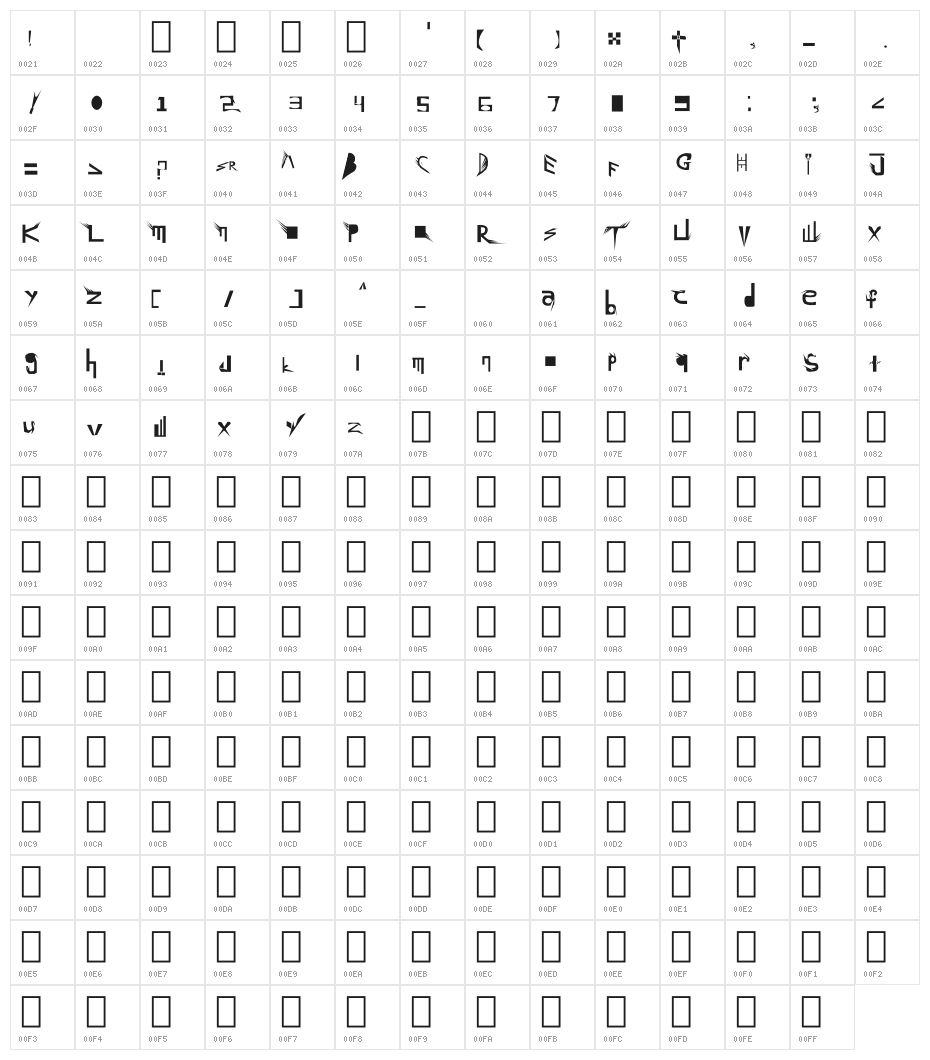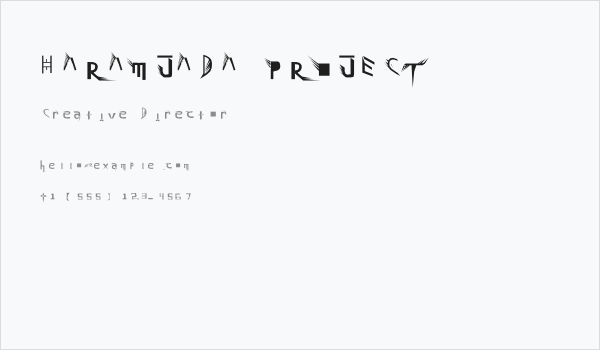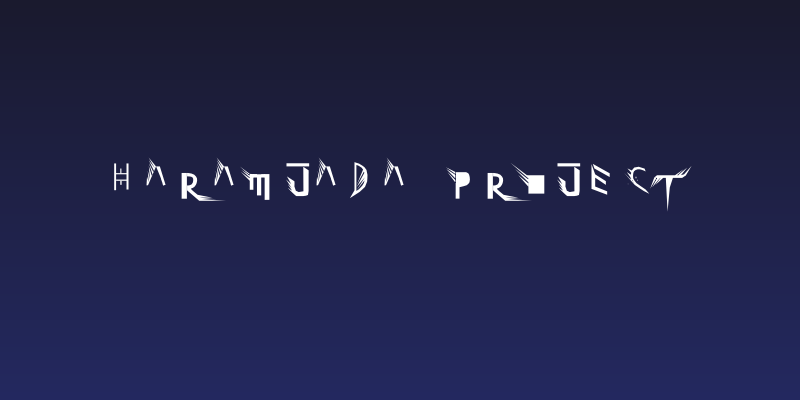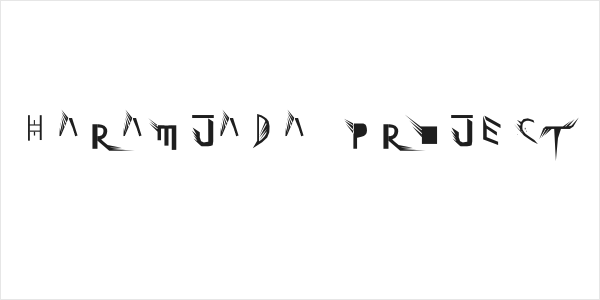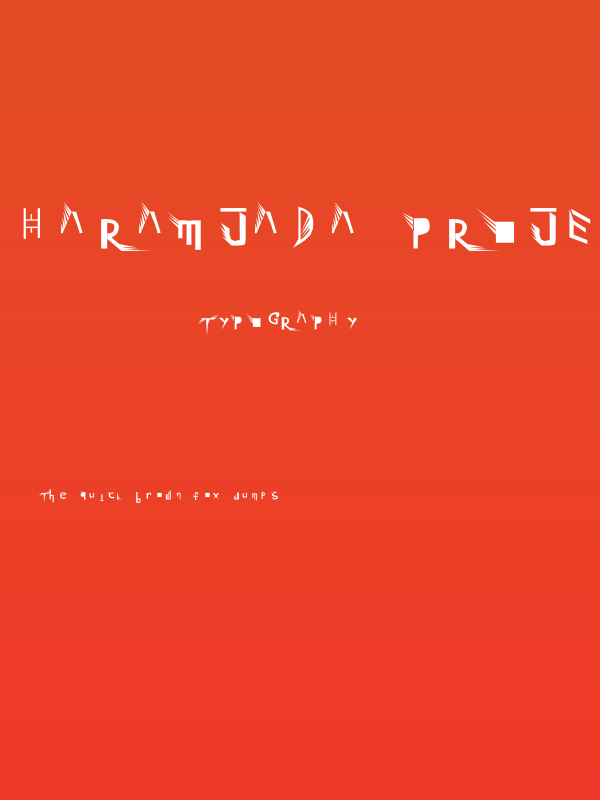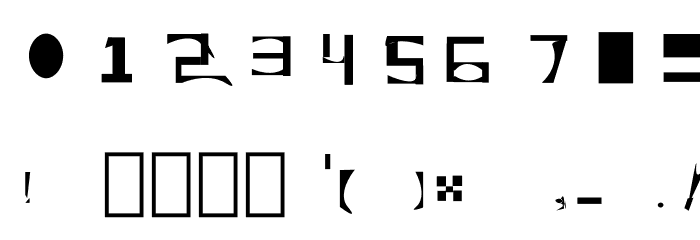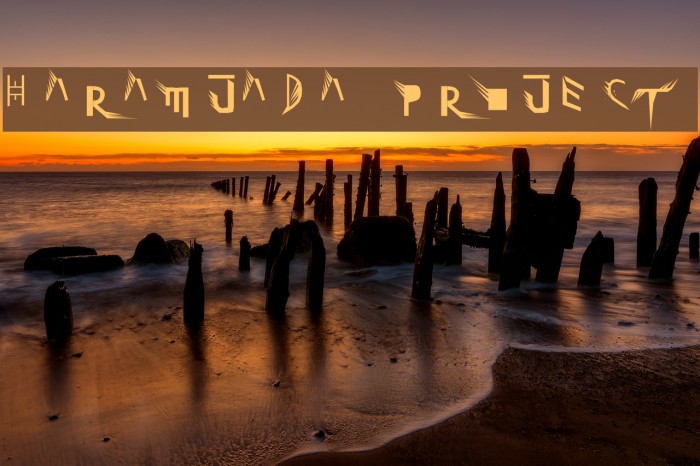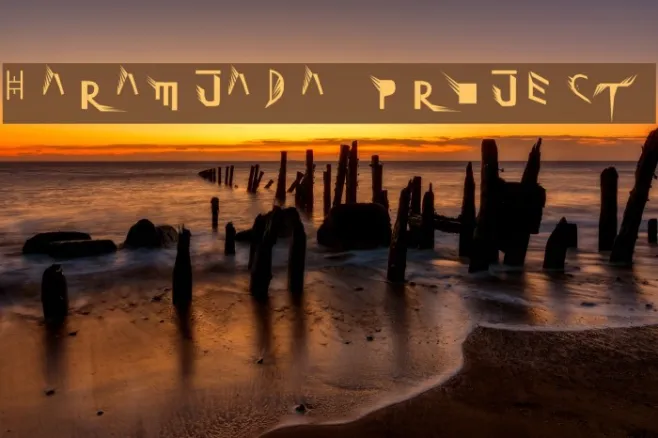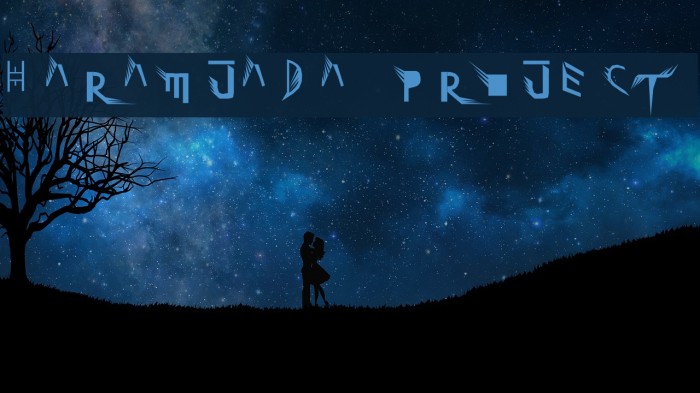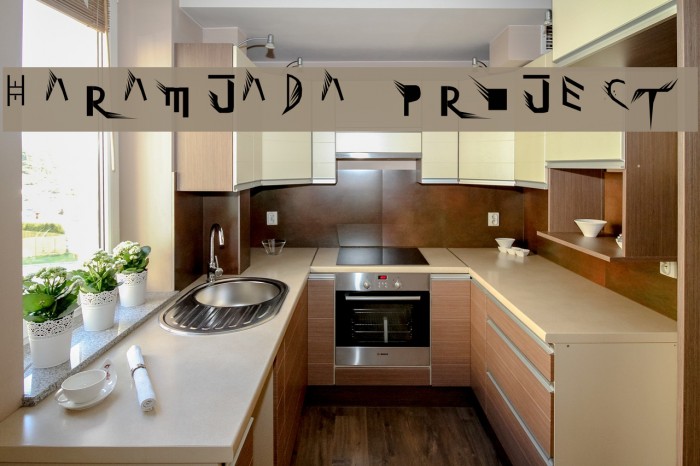
HARAMJADA PROJECT Font
HARAMJADA PROJECT Description
This font features a highly stylized and abstract design, characterized by sharp angles and fragmented shapes. The letters are composed of geometric elements that create a sense of movement and energy. The uppercase and lowercase letters share a consistent aesthetic, with each character exhibiting unique cuts and slashes that give the font a dynamic and edgy appearance. The numbers and special characters maintain this theme, contributing to a cohesive overall look. This font is ideal for projects that require a bold and unconventional style, making it suitable for modern and artistic designs.
| Proposed Projects | Ideal for album covers, posters, video game graphics, and modern art projects. |